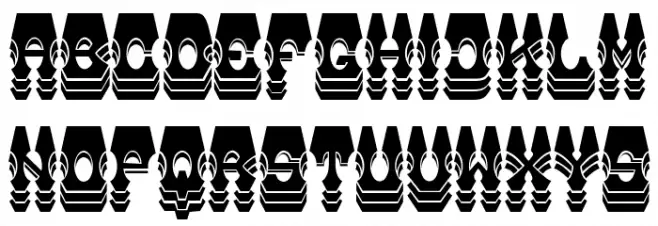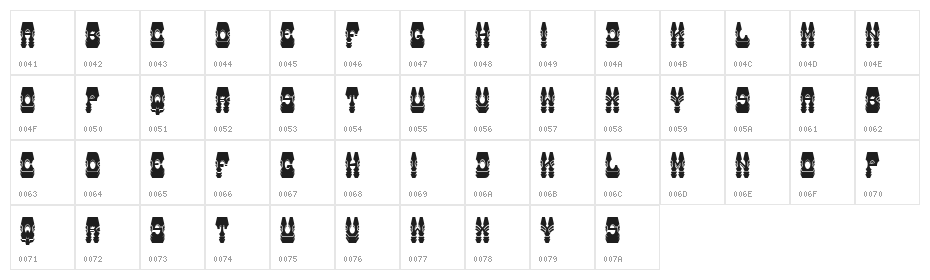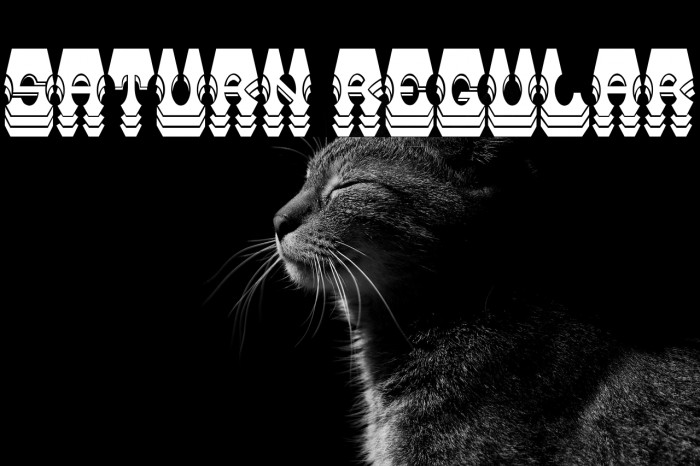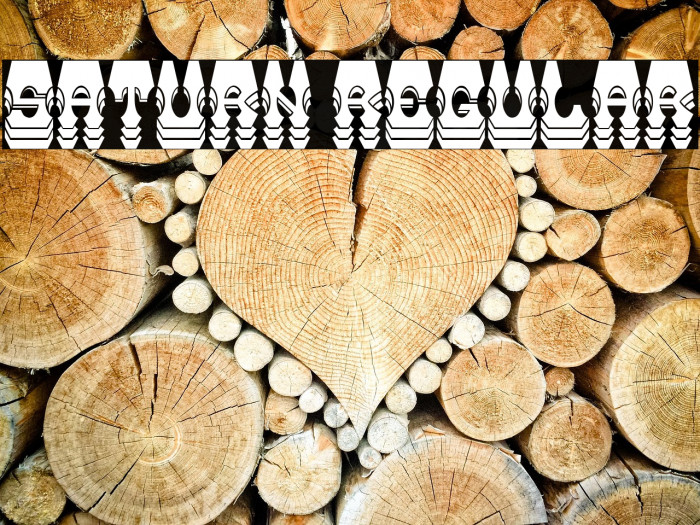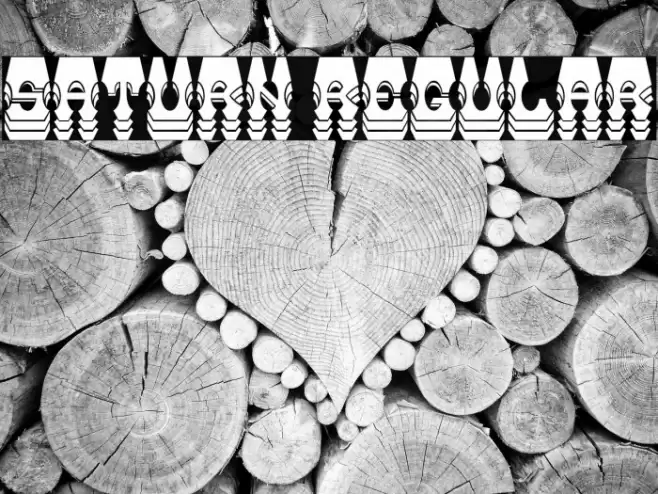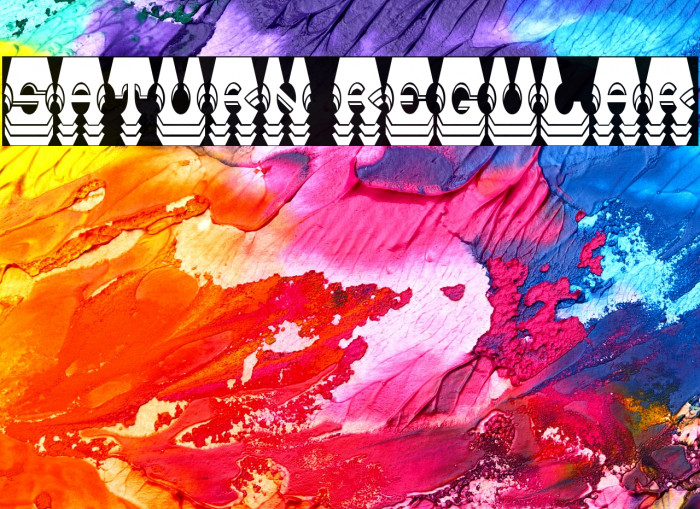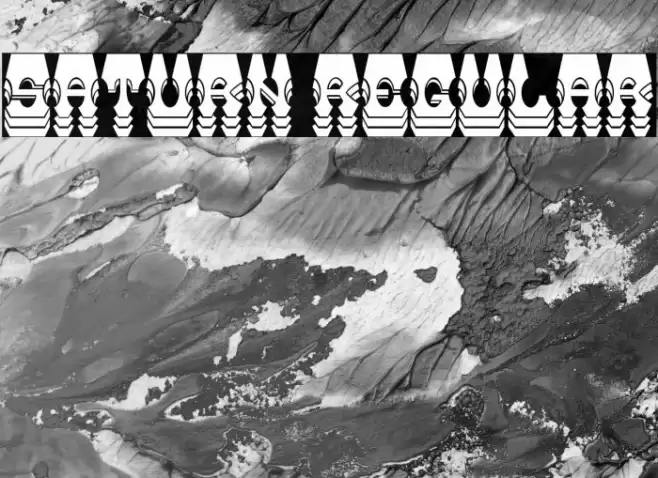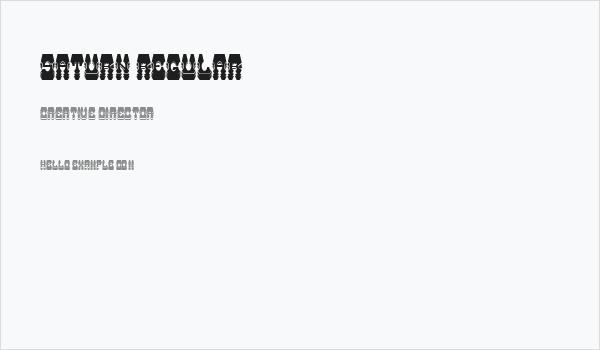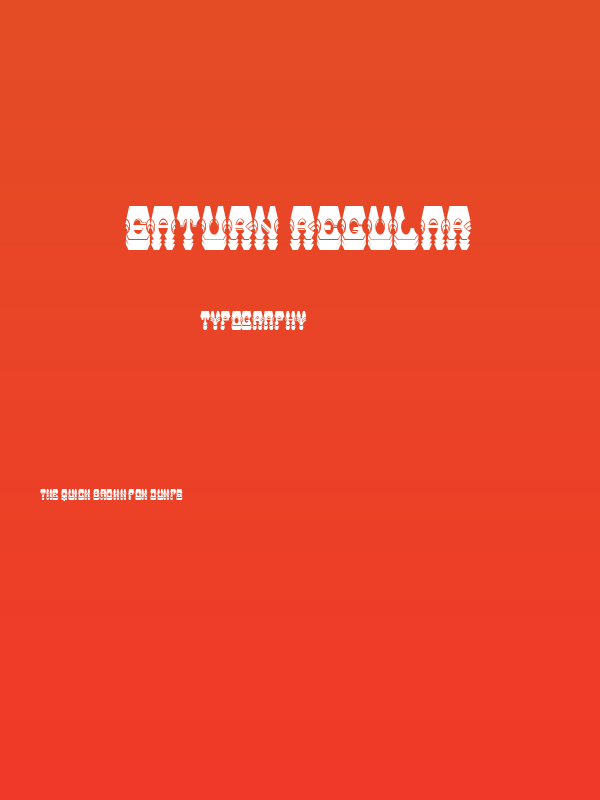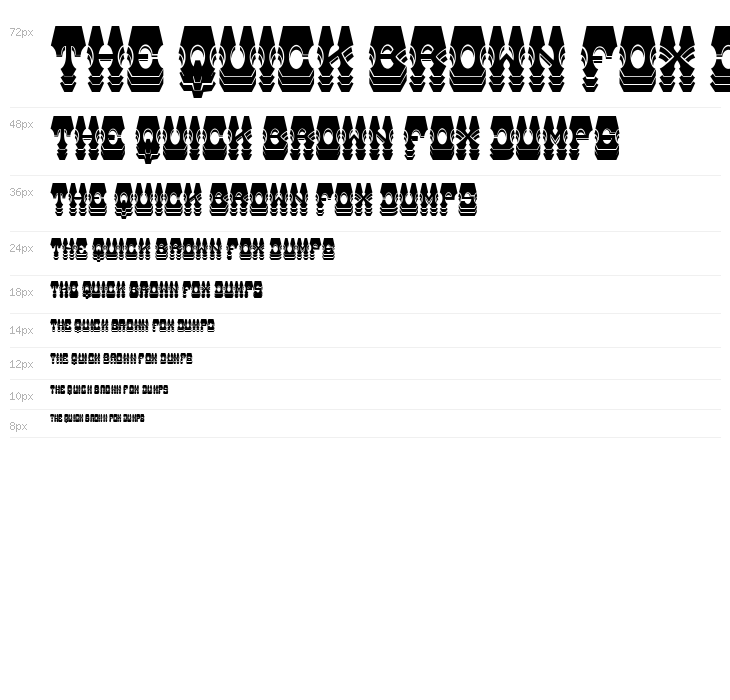
Saturn Regular Font
Saturn Regular Description
This font features a bold, geometric design with a futuristic aesthetic. Each character is constructed with multiple layers, creating a 3D effect that is both striking and unique. The use of sharp angles and clean lines gives it a modern, industrial feel. The font is highly decorative, making it suitable for eye-catching headlines or artistic projects. Its distinctive style is characterized by a consistent width and a high level of contrast between the thick and thin elements, enhancing its visual impact. The spacing between characters is tight, contributing to its compact and cohesive appearance.
| Overall Style | Futuristic, Industrial |
| Proposed Projects | Ideal for sci-fi themed posters, video game titles, or branding that requires a modern, edgy look. |